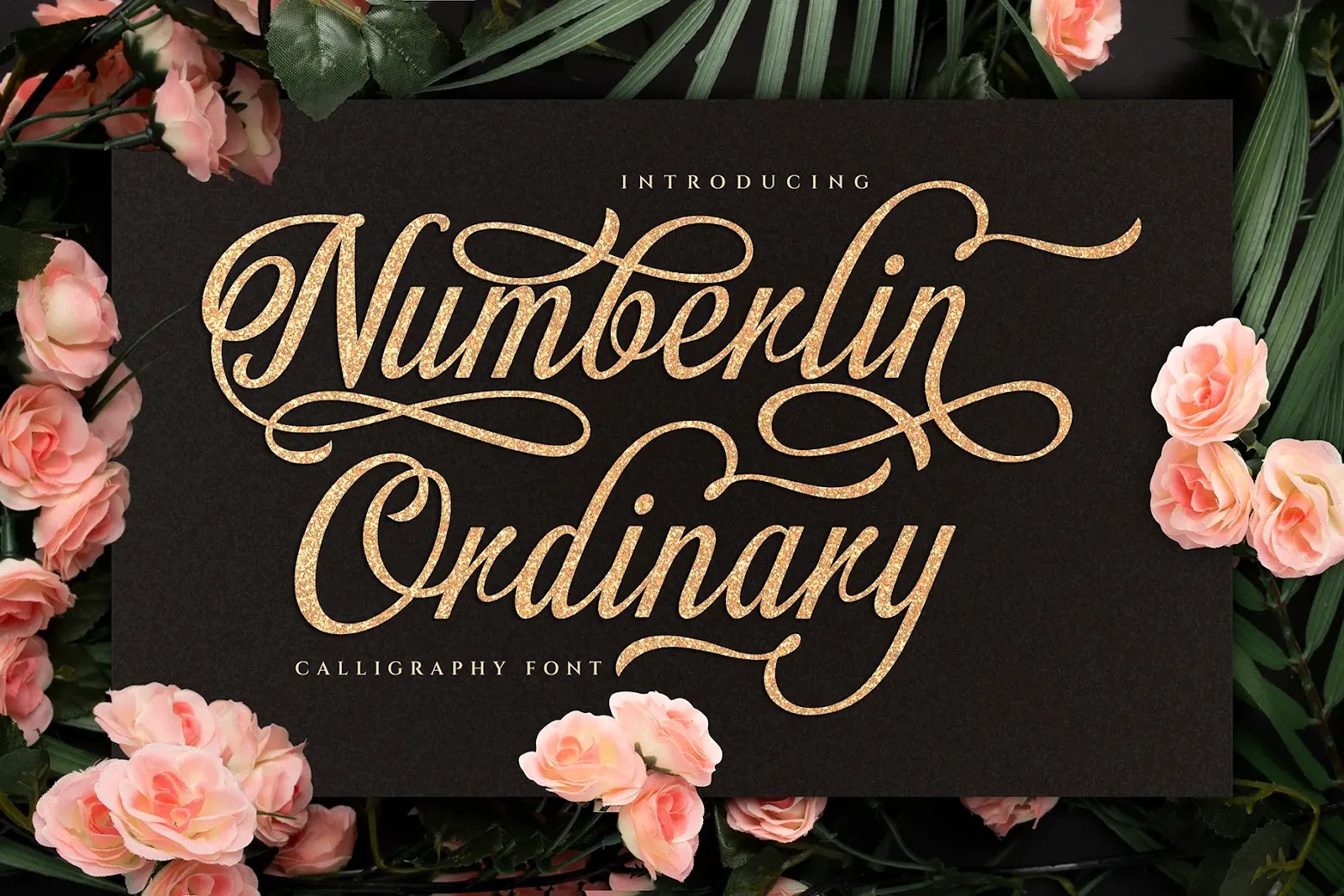
Numberlin Ordinary Font is a modern script typeface that blends contemporary elegance with a fluid, handcrafted feel. Designed to bring a stylish and graceful touch to any design, this font offers a beautiful balance of personality and readability. Its smooth strokes and natural flow make it ideal for adding a personal flair while maintaining a polished look.
Perfectly suited for a wide range of creative applications, Numberlin Ordinary shines in projects such as wedding invitations, birthday cards, fashion labels, feminine branding, salon signage, and beauty product packaging. It also enhances product designs, inspirational quotes, t-shirts, logos, and personal branding with its chic and artistic charm.